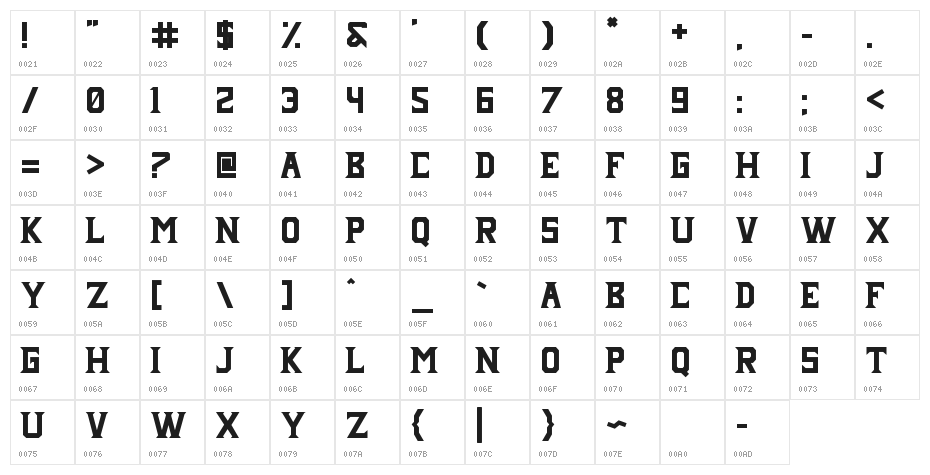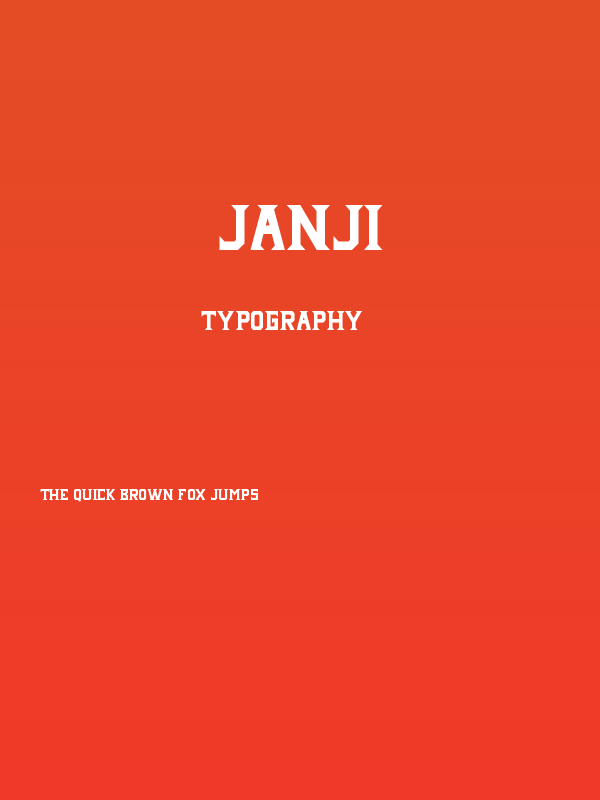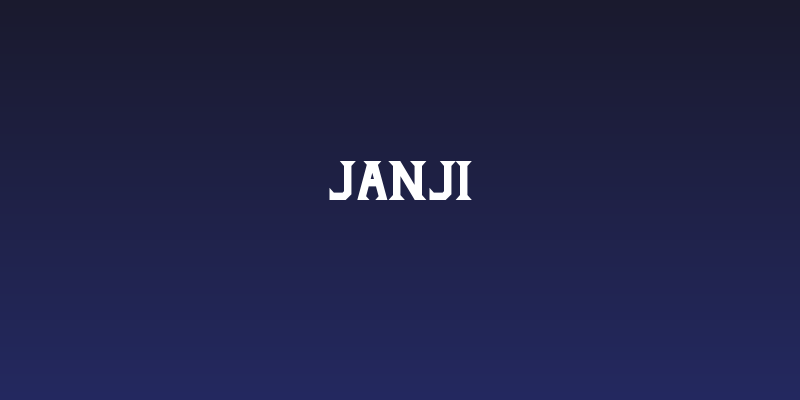
Janji Font
| Gesamtstil | Vintage |
| Anwendungsfall | Logos, Headlines, Posters |
| Vorgeschlagene Projekte | Ideal for sports team logos, vintage signage, posters, and branding that requires a bold statement. |